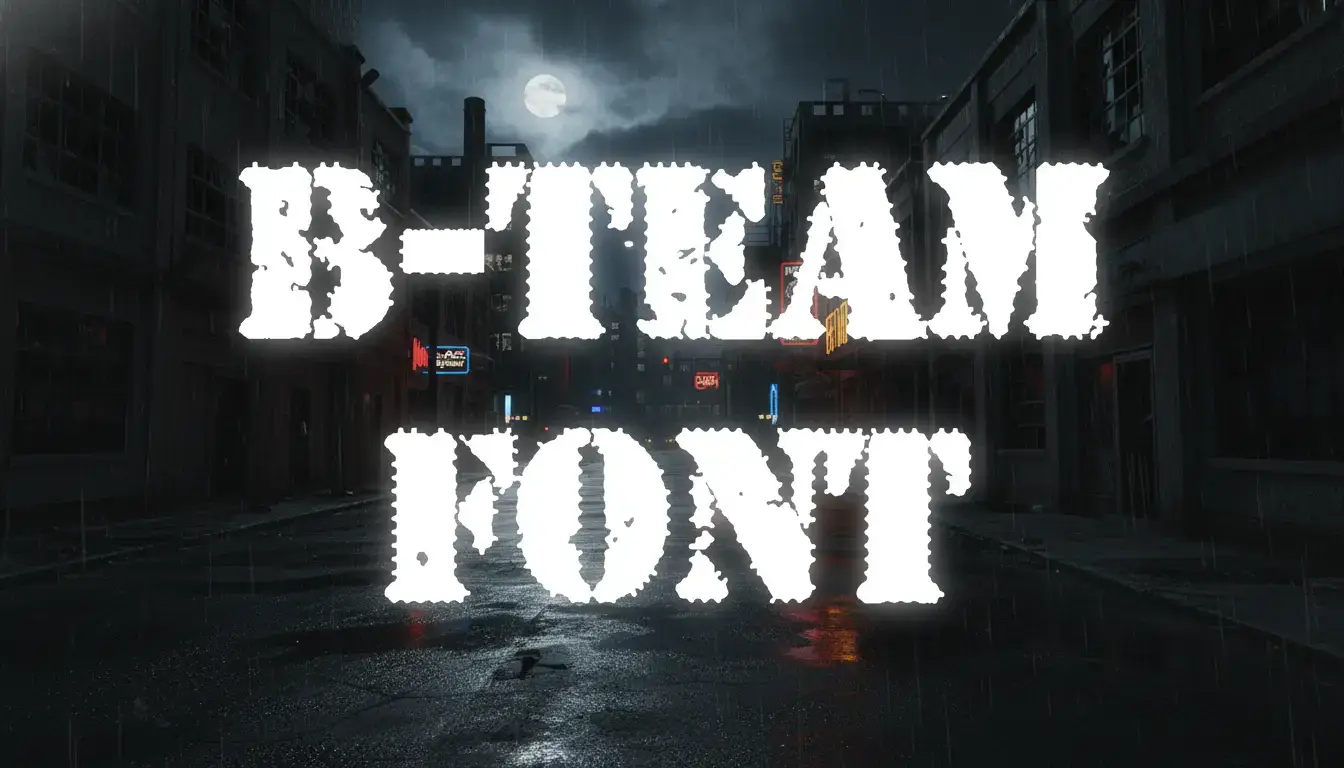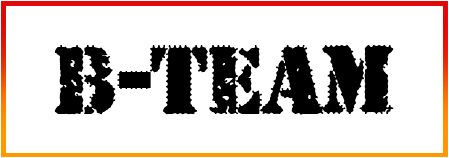
B-Team Font
B-Team
B-Team is a fancy font made by Woodcutter Manero. Bold and full of character, it's built to stand out rather than blend in. You can download it for free and test it with your own words in the preview above.
You get every letter from A to Z in both cases and all the numbers from 0 to 9, which means B-Team can handle full sentences, dates and prices. Everyday marks like &, !, ? and @ are there too. Thanks to its accented letters, it also works for Spanish, French, German, Portuguese and Italian, not just English.
B-Team is a natural fit for posters, logos and eye-catching headlines. Use it for one standout word or headline and let simpler fonts handle the rest.
Yes. B-Team includes the accented letters needed for Spanish, French, German, Portuguese and Italian, so it works for more than just English.